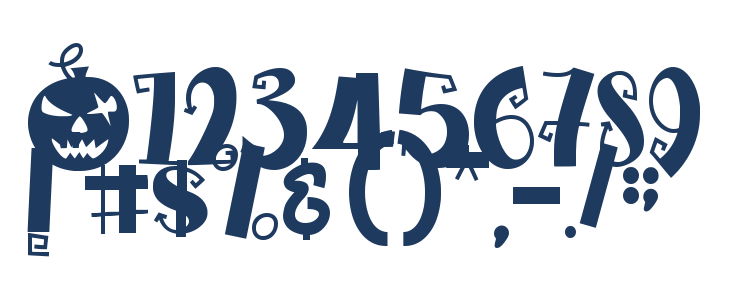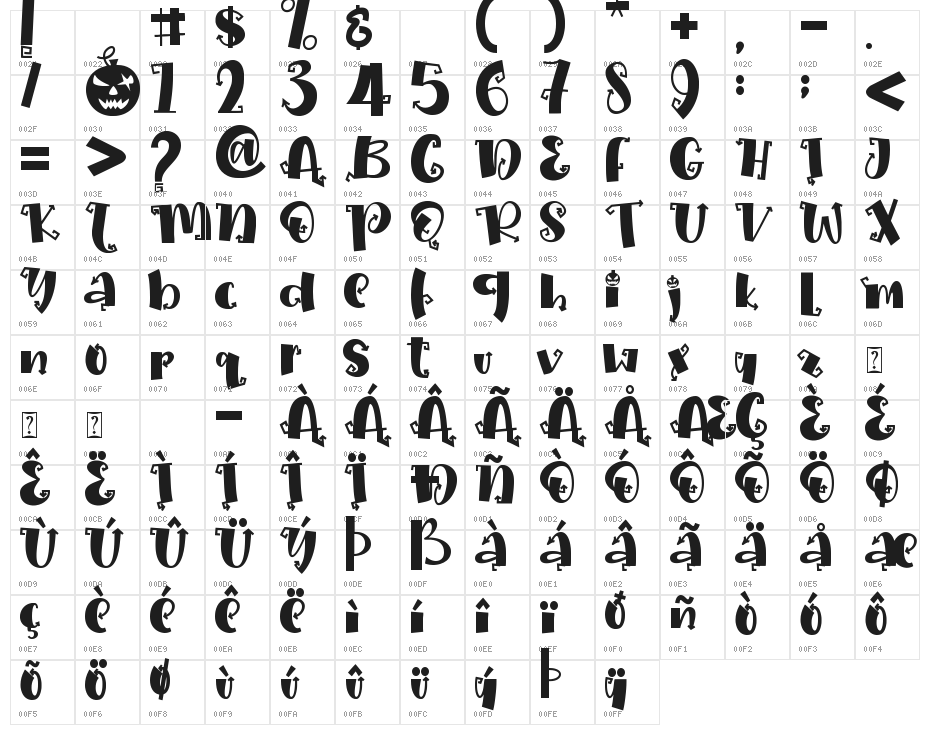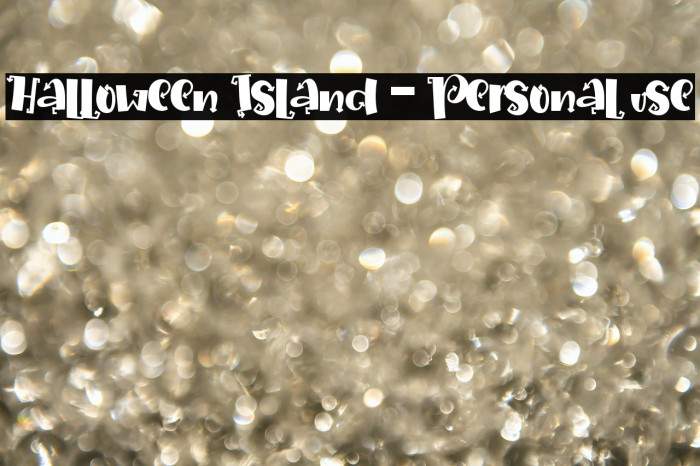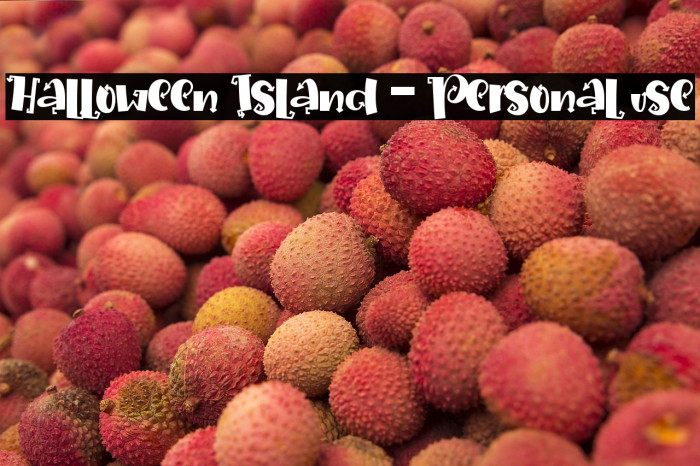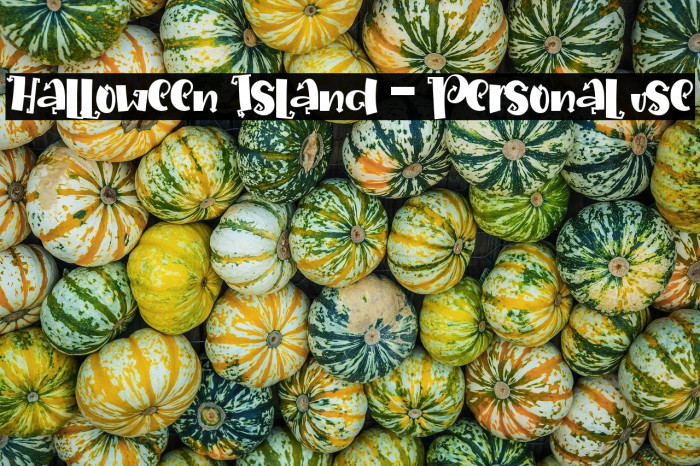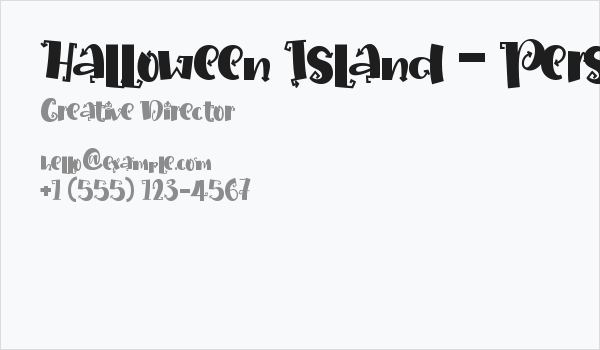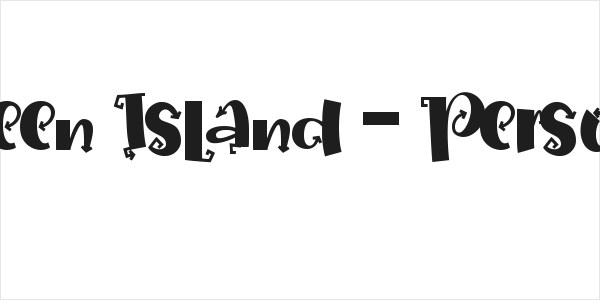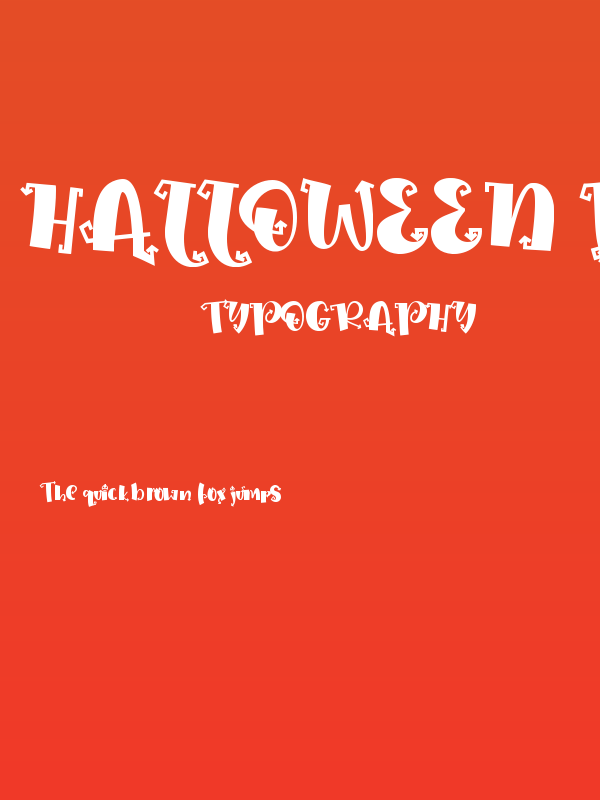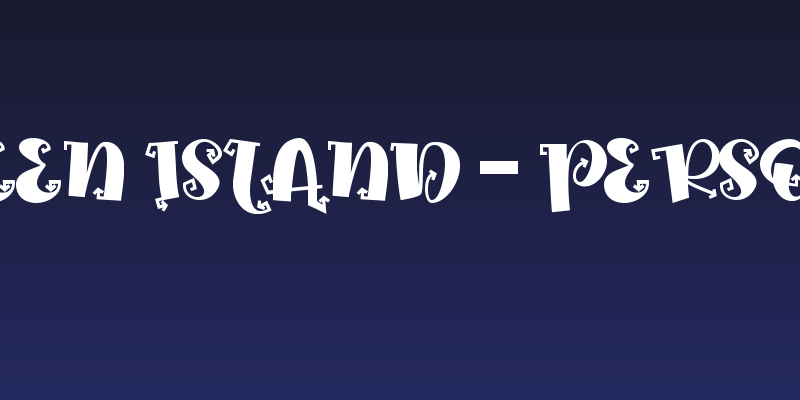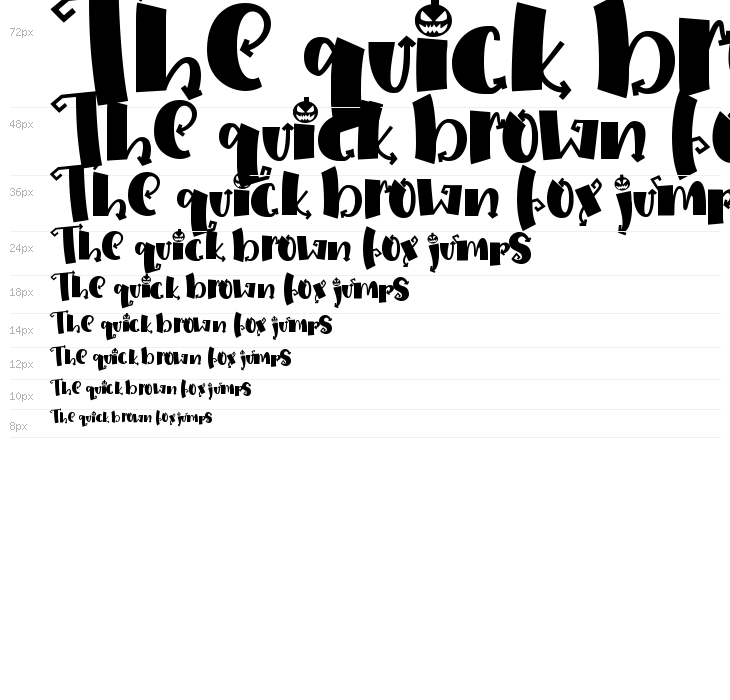
Halloween Island - Personal use Font
Halloween Island - Personal use Description
This font features a playful and spooky design, perfect for Halloween-themed projects. The letters are bold and have a whimsical, cartoonish style with quirky, irregular shapes and decorative elements like swirls and curls. The uppercase and lowercase letters maintain a consistent theme, with some characters incorporating Halloween motifs such as pumpkins. The numbers and special characters follow the same playful aesthetic, making them suitable for festive and fun designs.